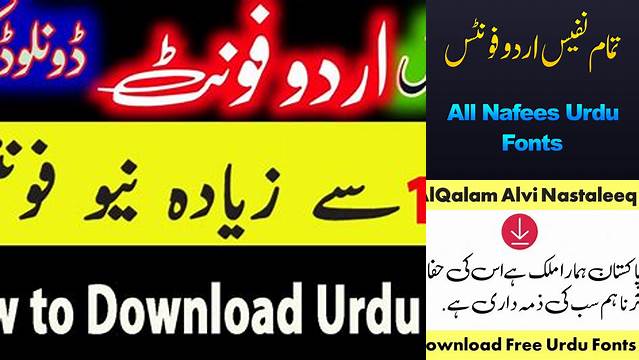
Why Urdu Fonts Matter
Before we jump into the download details, let’s chat a bit about why Urdu fonts are so important. Typography isn't just about pretty letters; it’s about conveying emotion, culture, and clarity. For Urdu speakers and enthusiasts, having a diverse range of fonts at your fingertips means you can:
- Express yourself more authentically in digital communications.
- Create visually appealing designs for social media, posters, and more.
- Preserve the beauty and heritage of the Urdu script.
- Ensure readability across different devices and platforms.
Think about it – a beautifully crafted Urdu font can make your messages stand out, give your designs a professional touch, and even help preserve the rich cultural heritage embedded in the script. That's why finding the right font is crucial!
Exploring open-source repositories can be a bit more technical, but it's worth it for the unique and high-quality fonts you can find. Plus, you're often supporting the creators directly by using their work!
3. Online Font Archives and Communities
Don't underestimate the power of online archives and communities dedicated to typography! These platforms often host a variety of fonts, including Urdu fonts, that are shared by designers and enthusiasts. Some great places to check out include:
- Behance: Behance is a platform where designers showcase their work, and many font designers share their creations here. You can often find free Urdu fonts as part of larger design projects.
- Dribbble: Similar to Behance, Dribbble is a community for designers to share their work. It's a great place to discover unique and creative Urdu fonts.
- Urdu Design Forums: Online forums dedicated to Urdu design and calligraphy often have sections where members share fonts. These forums can be a valuable resource for finding rare and specialized Urdu fonts.
Participating in these communities can also help you connect with fellow designers and typographers, learn about new fonts, and even get feedback on your own designs. It's a win-win!